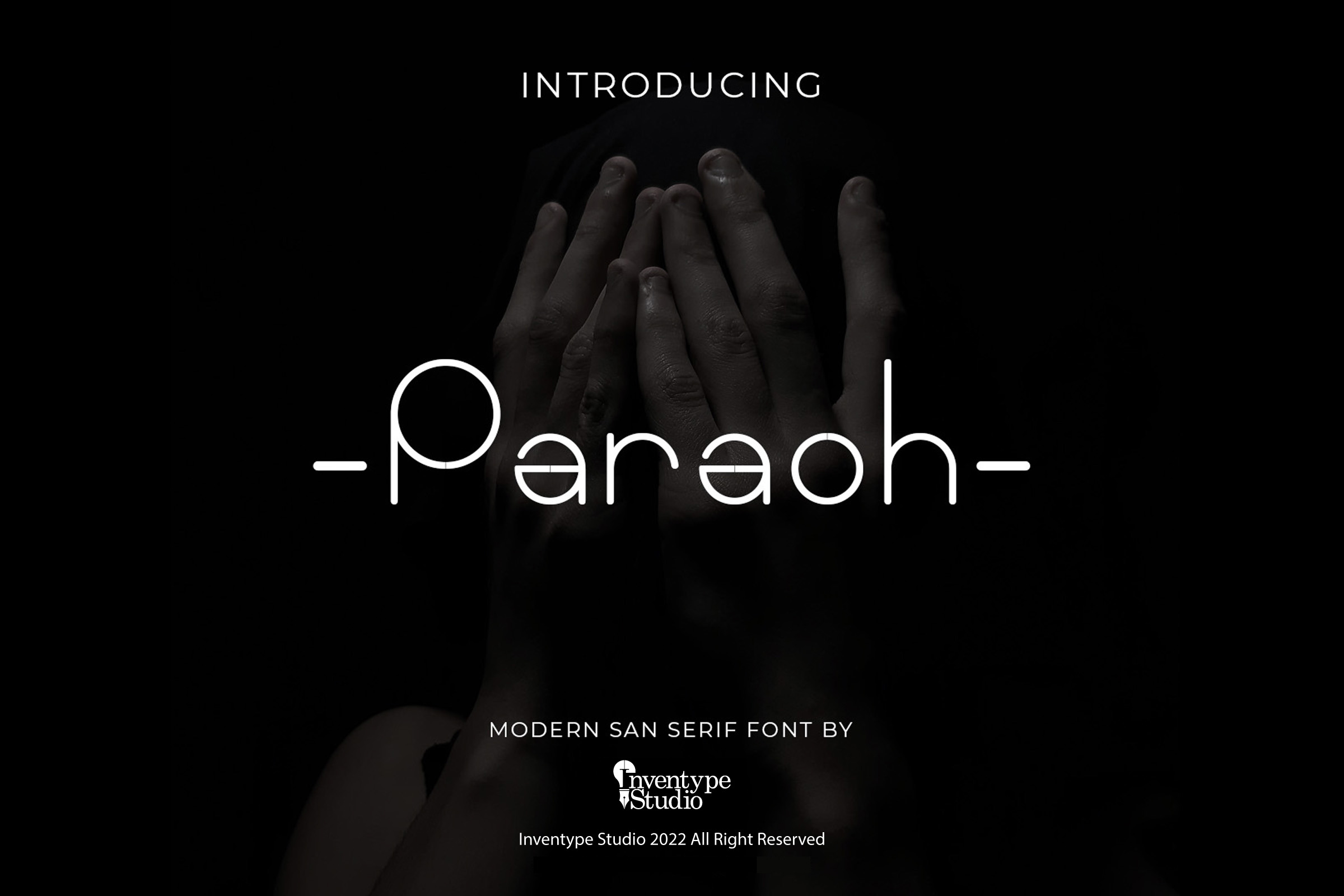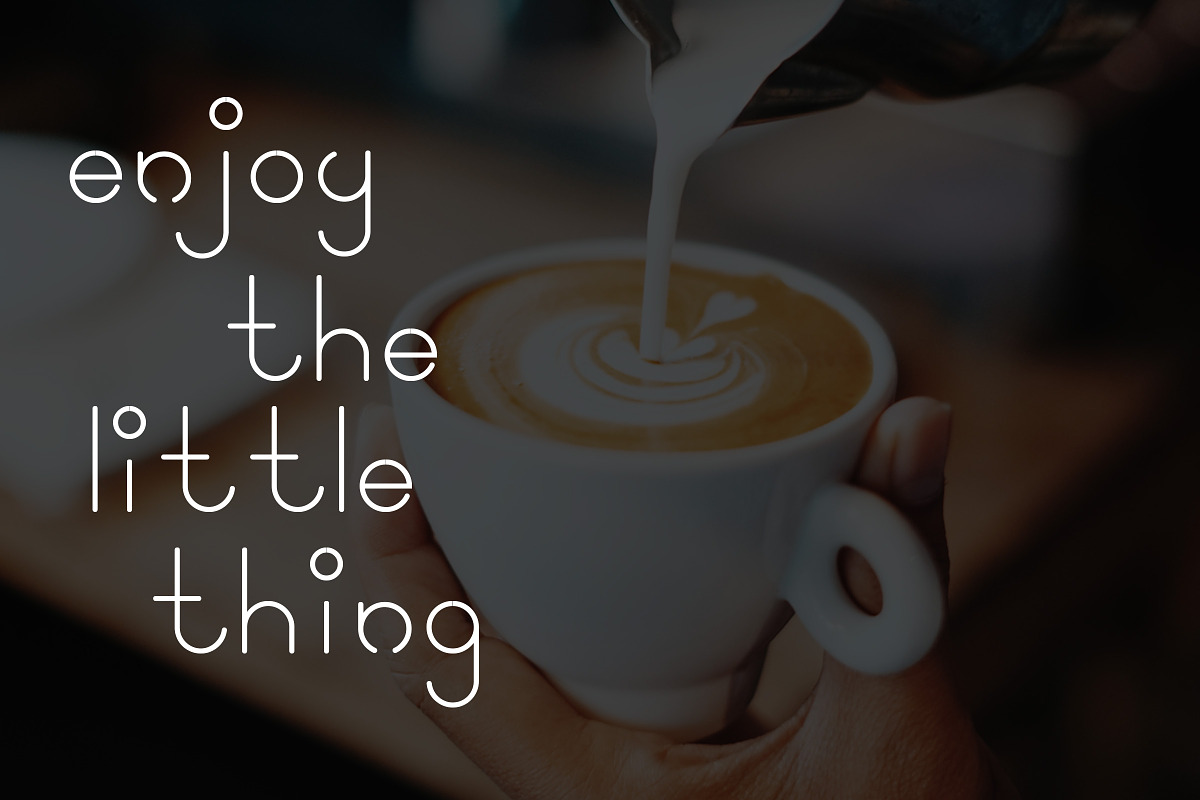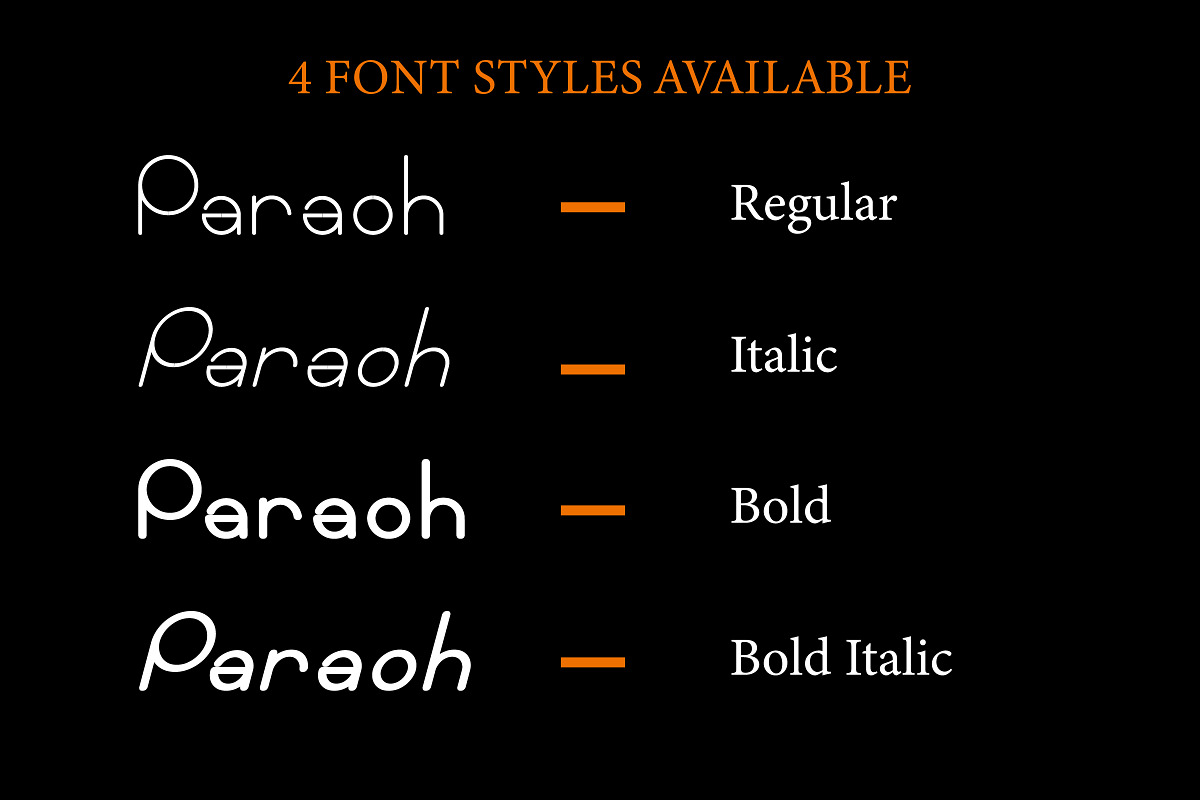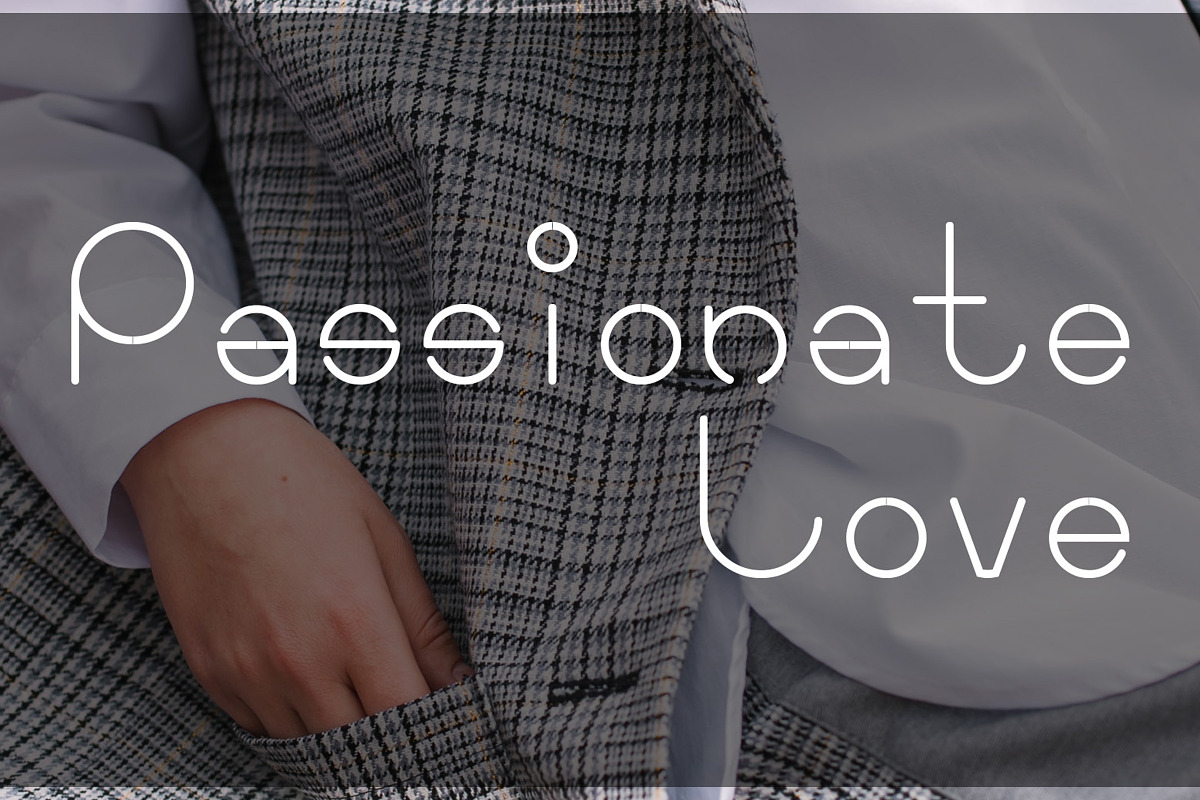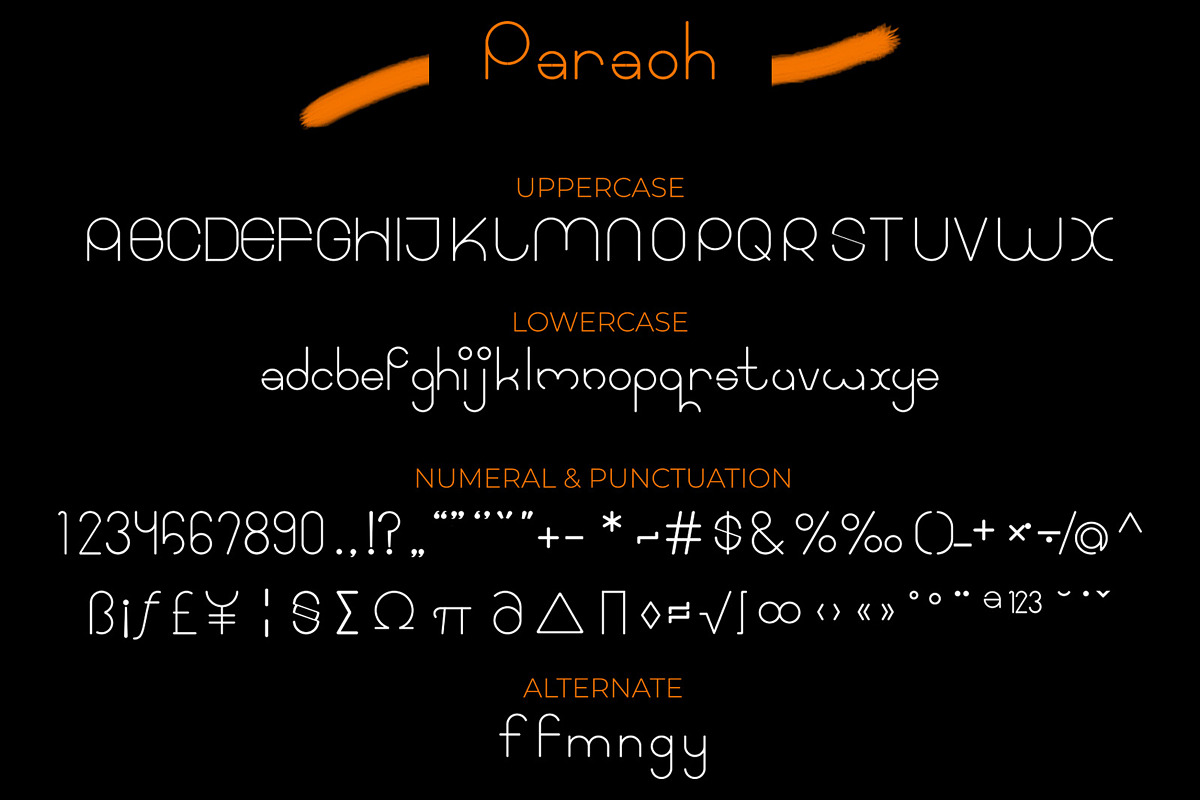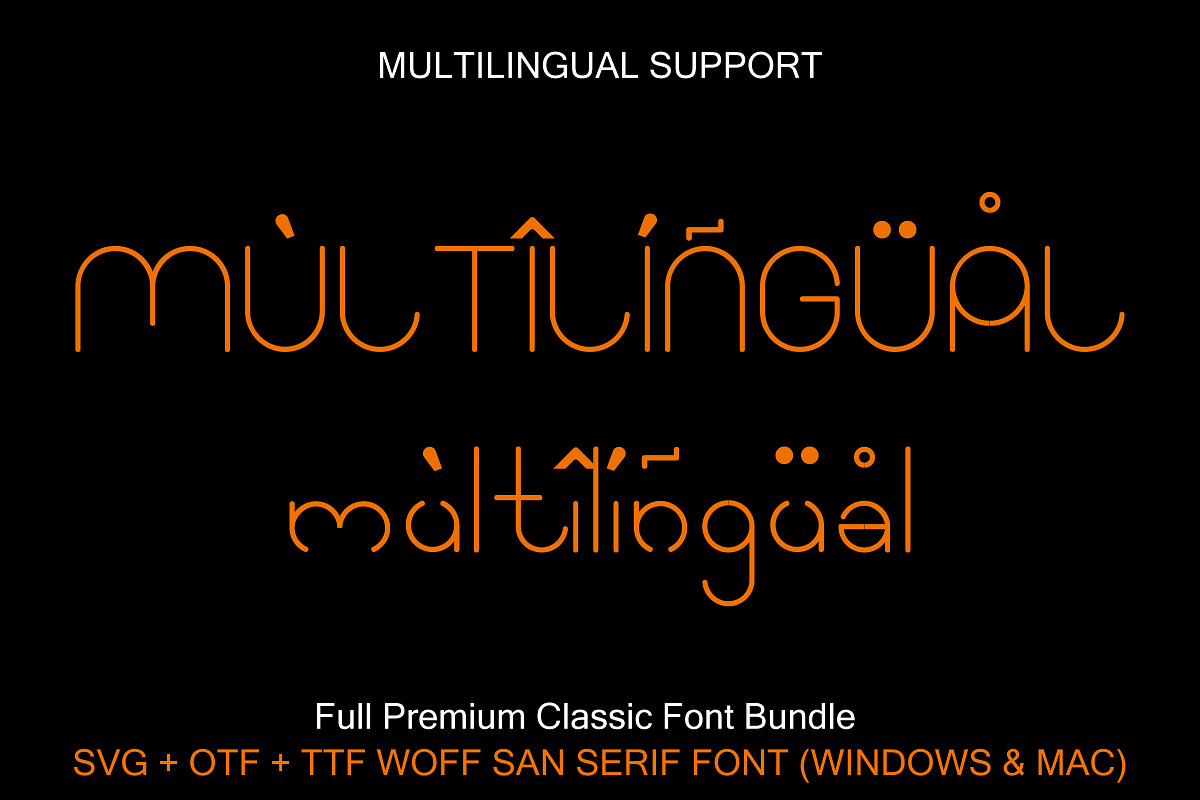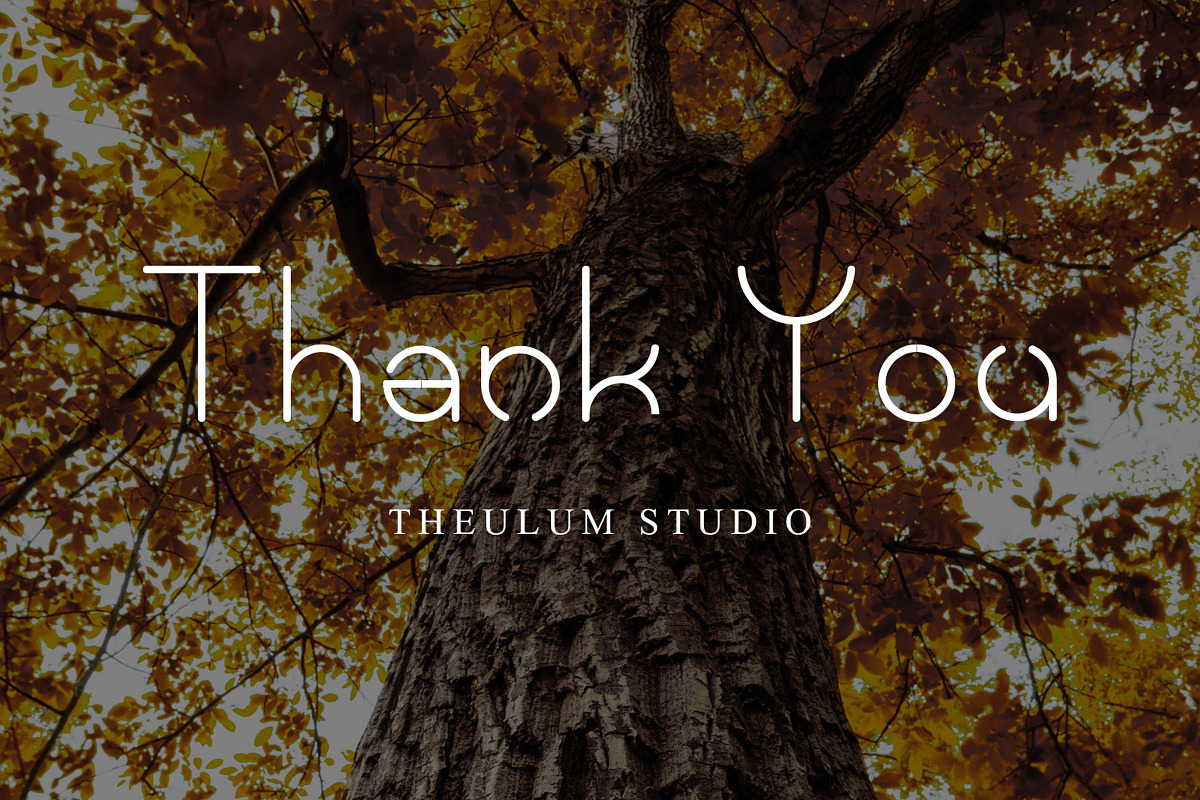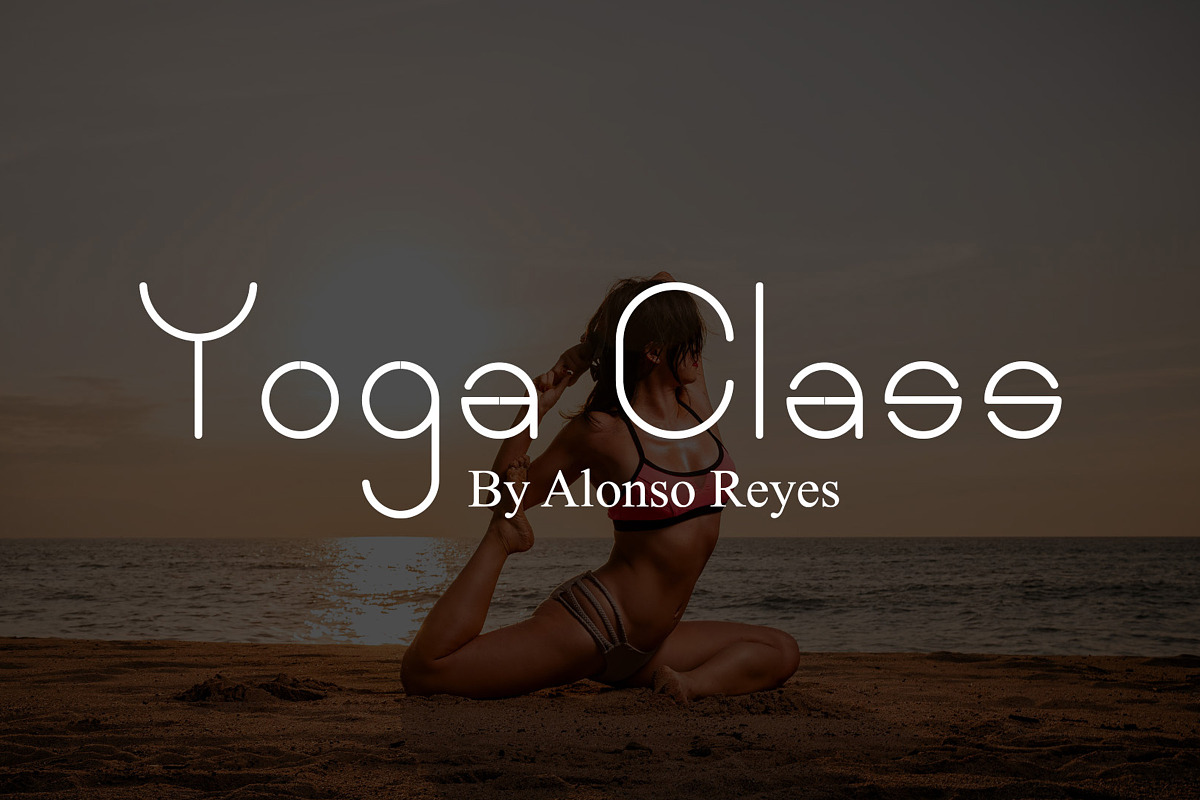
Paraoh - Classy San Serif Font
Paraoh is from the traditional language of Indonesia, it means a traditional boat used for catching fish. This font is inspired by old culture and tradition that still exists in this modern era which makes this font looks classic. It could make your project looks fabulous and amazing.
Paraoh would be perfect for photography, watermark, social media posts, advertisements, logos & branding, invitation, product designs, label, stationery, wedding designs, product packaging, special events, or anything that needs handwriting taste.
- Ton of glyphs (include Uppercase, Lowercase, Numerals & Punctuations) Works on PC & Mac
- 4 Font Styles
- Stylish Alternate